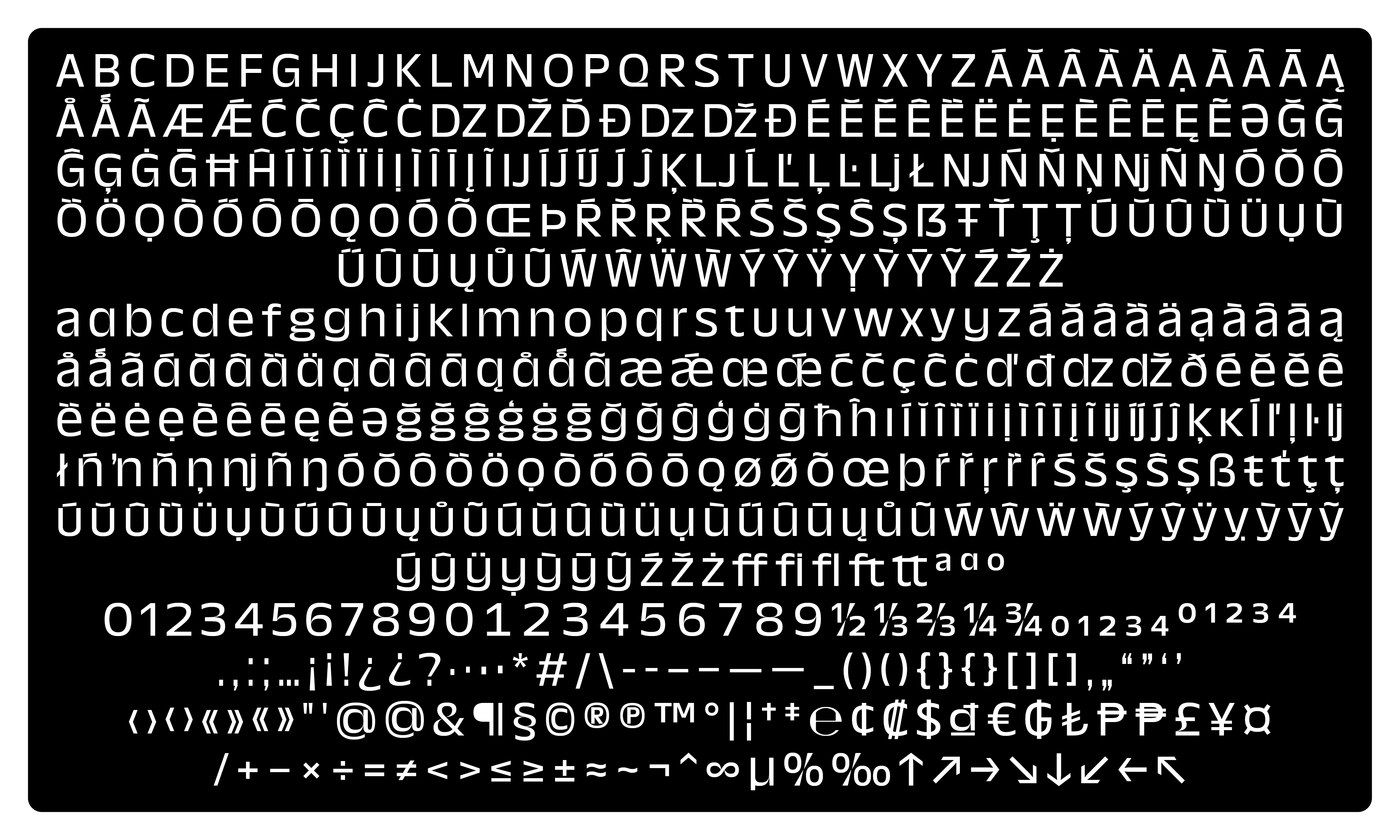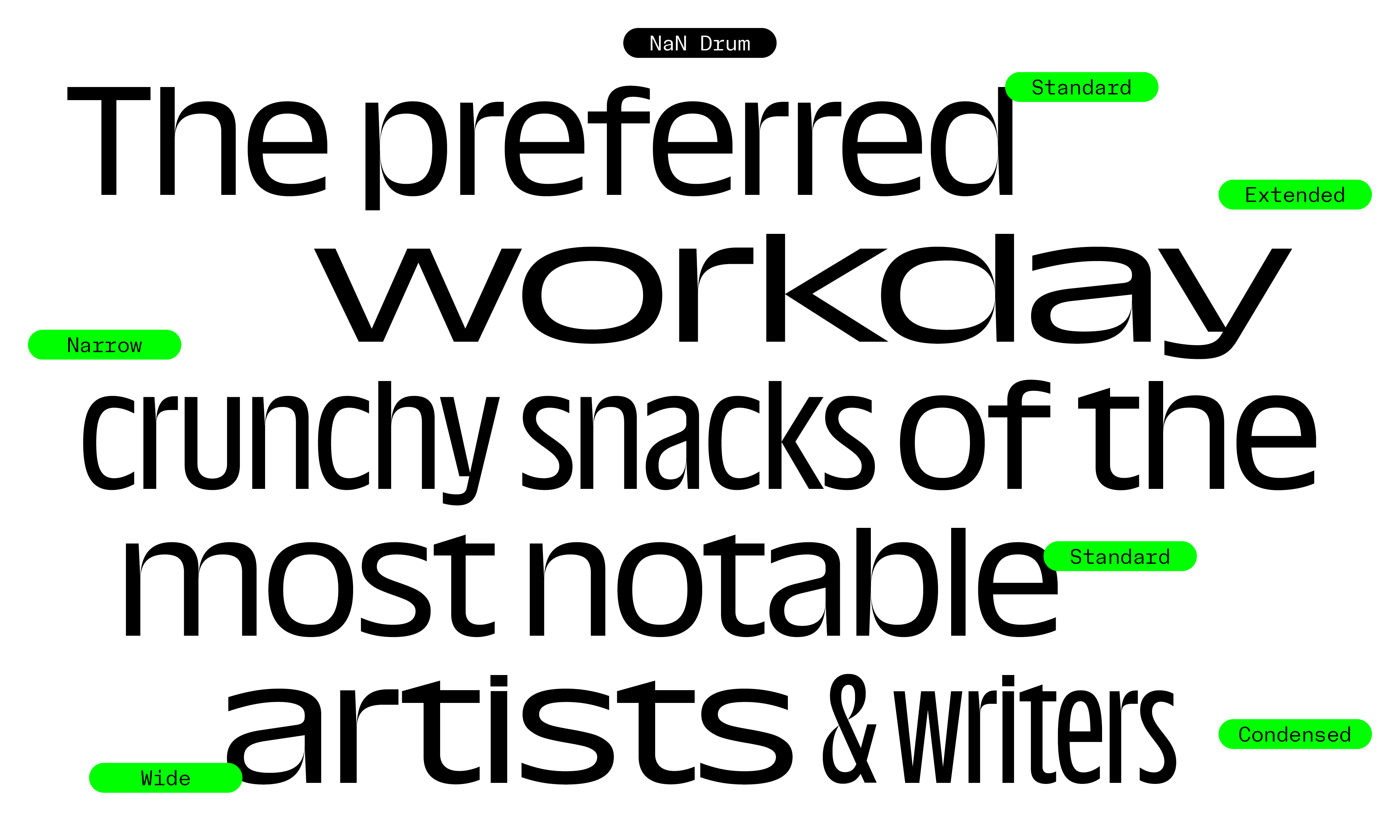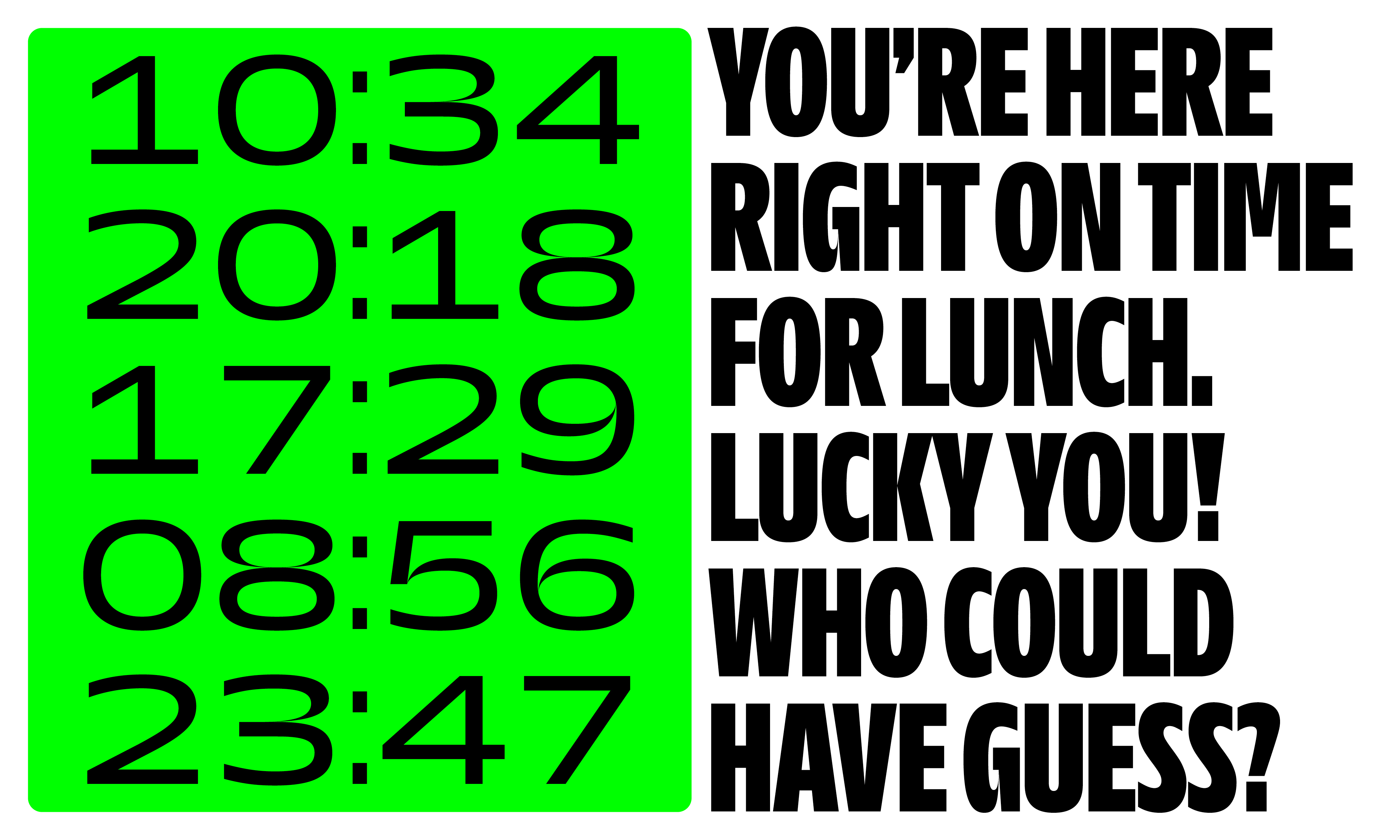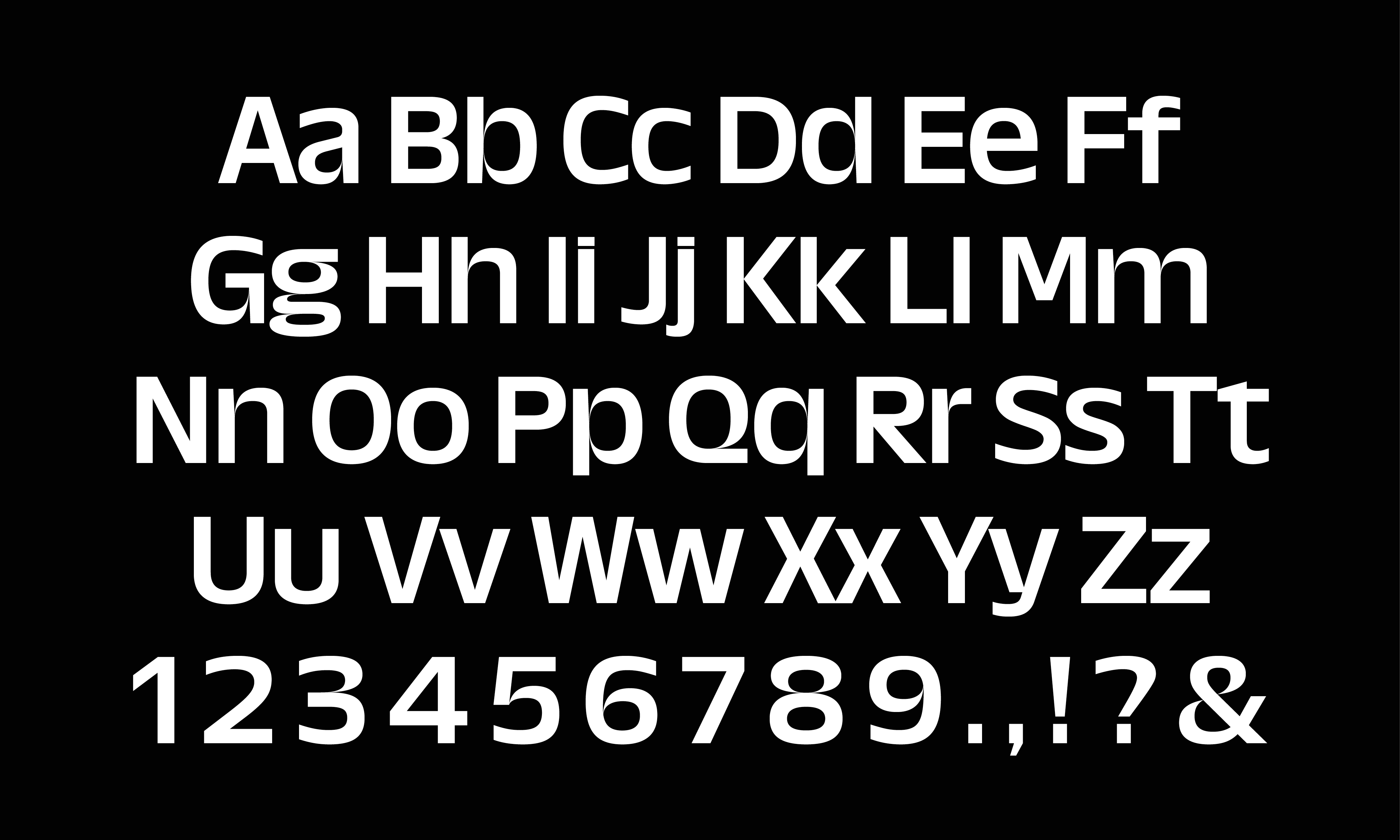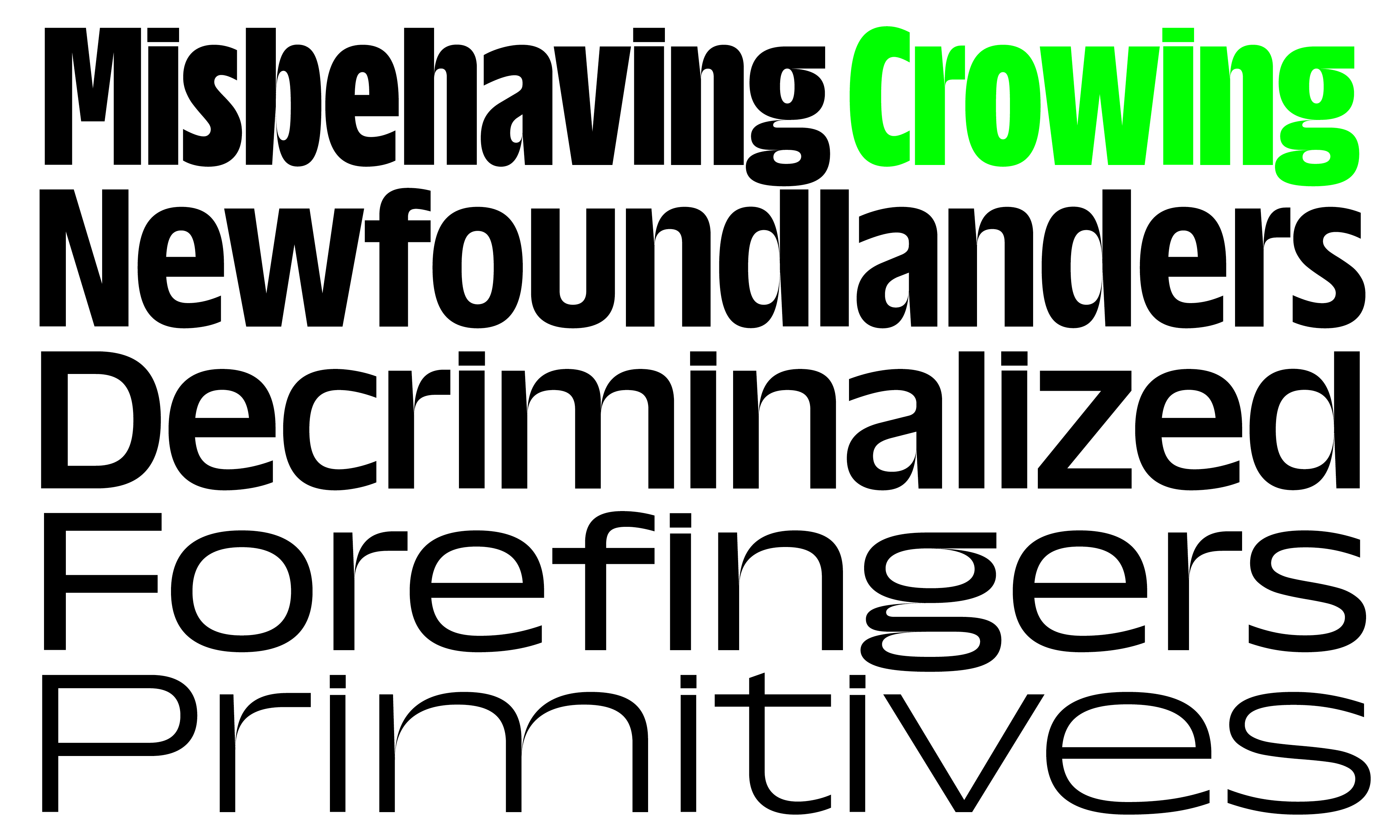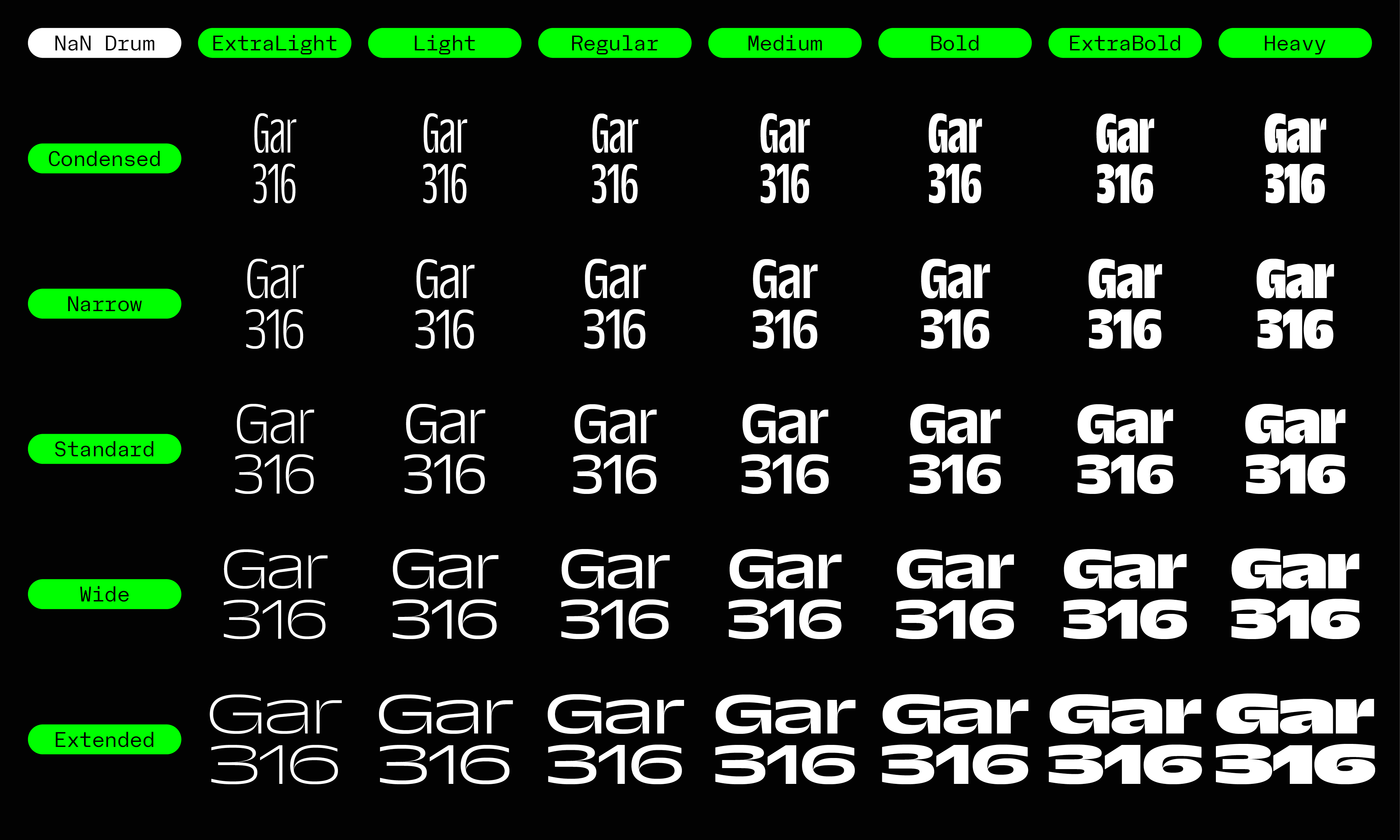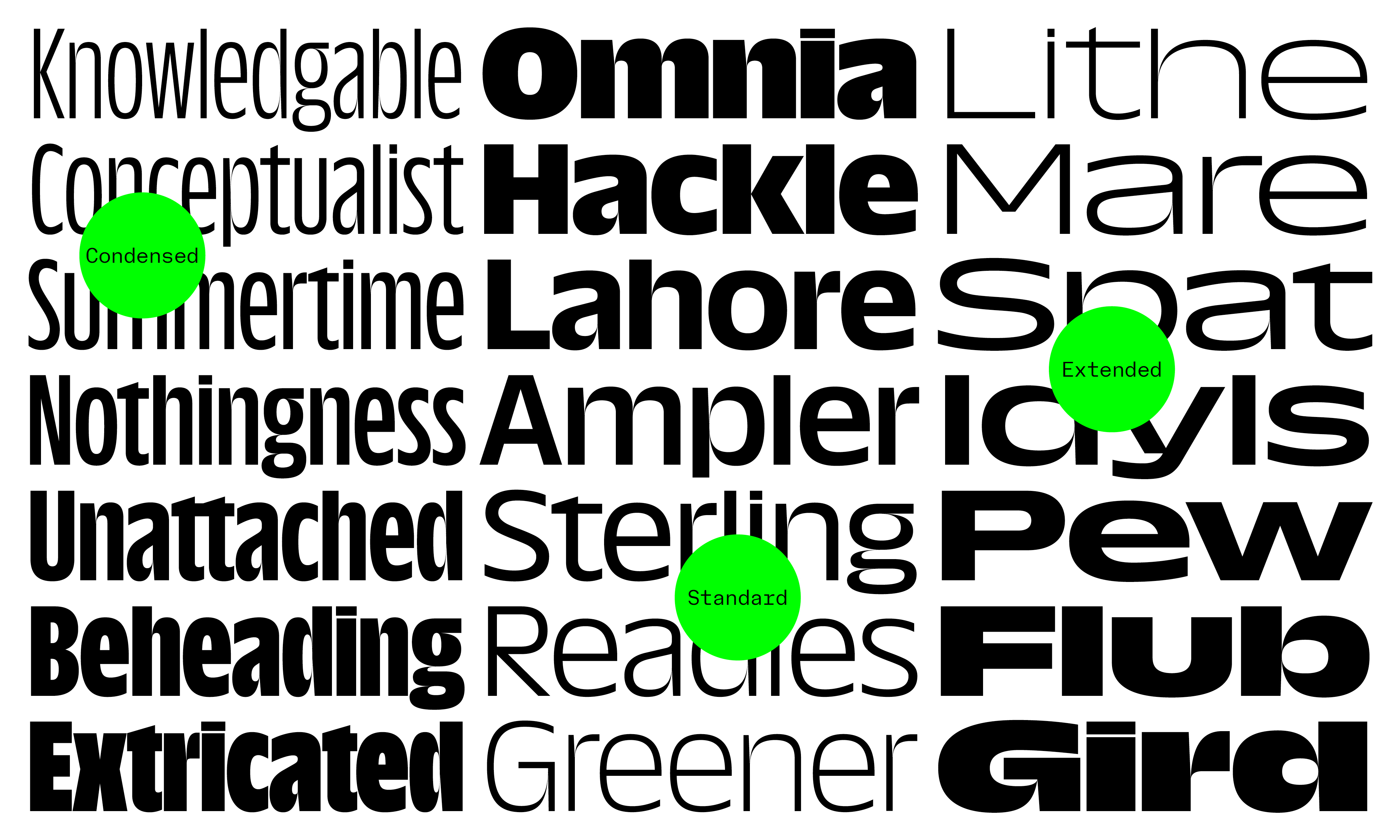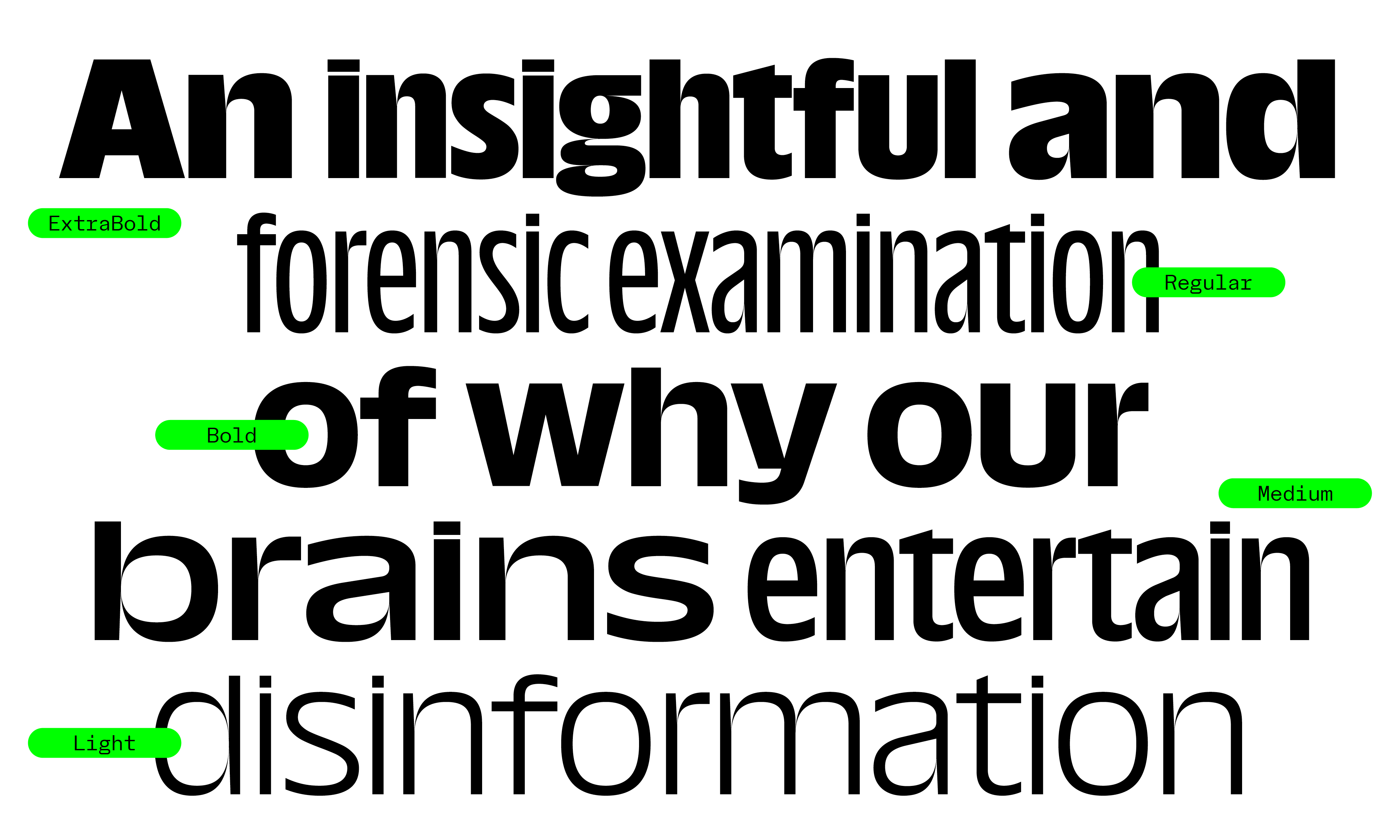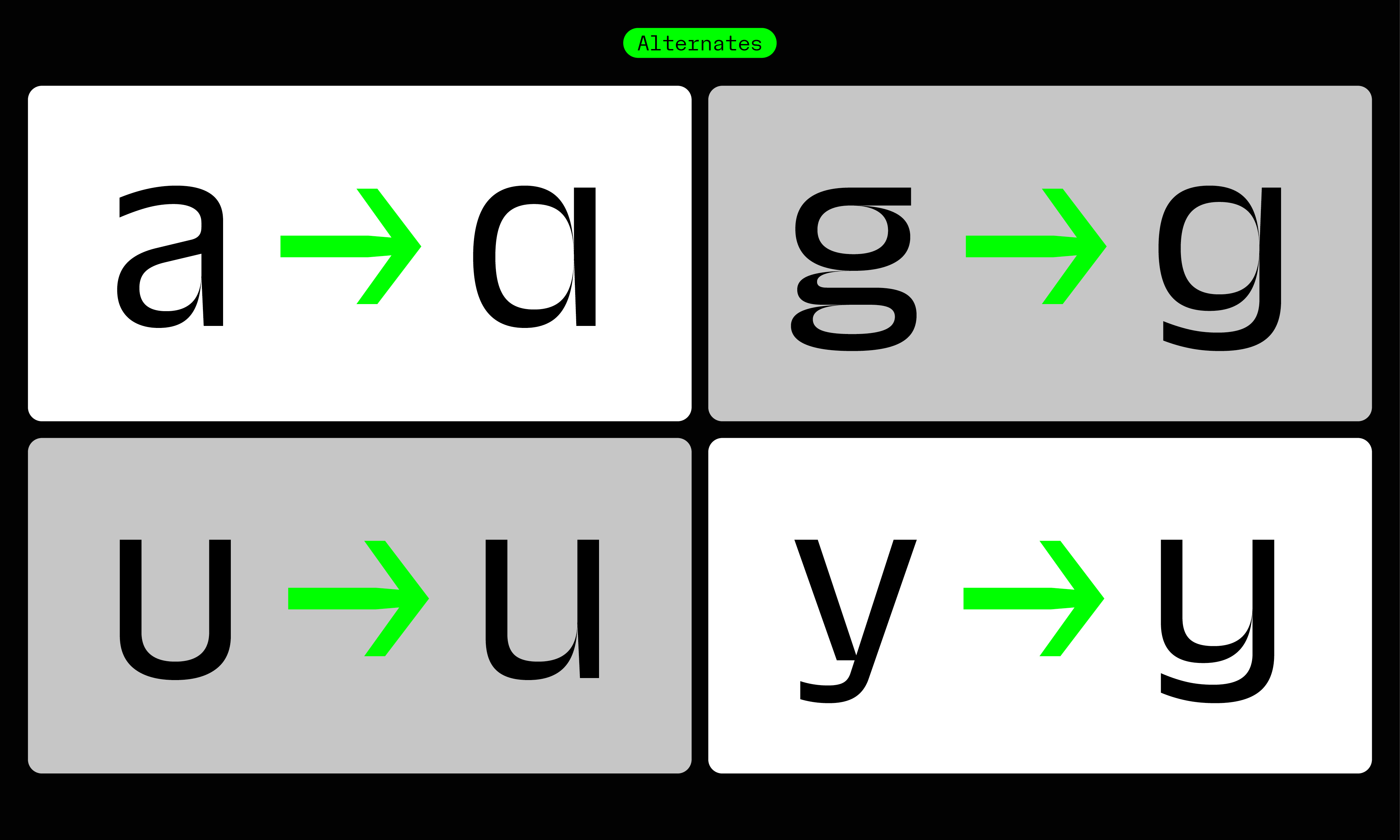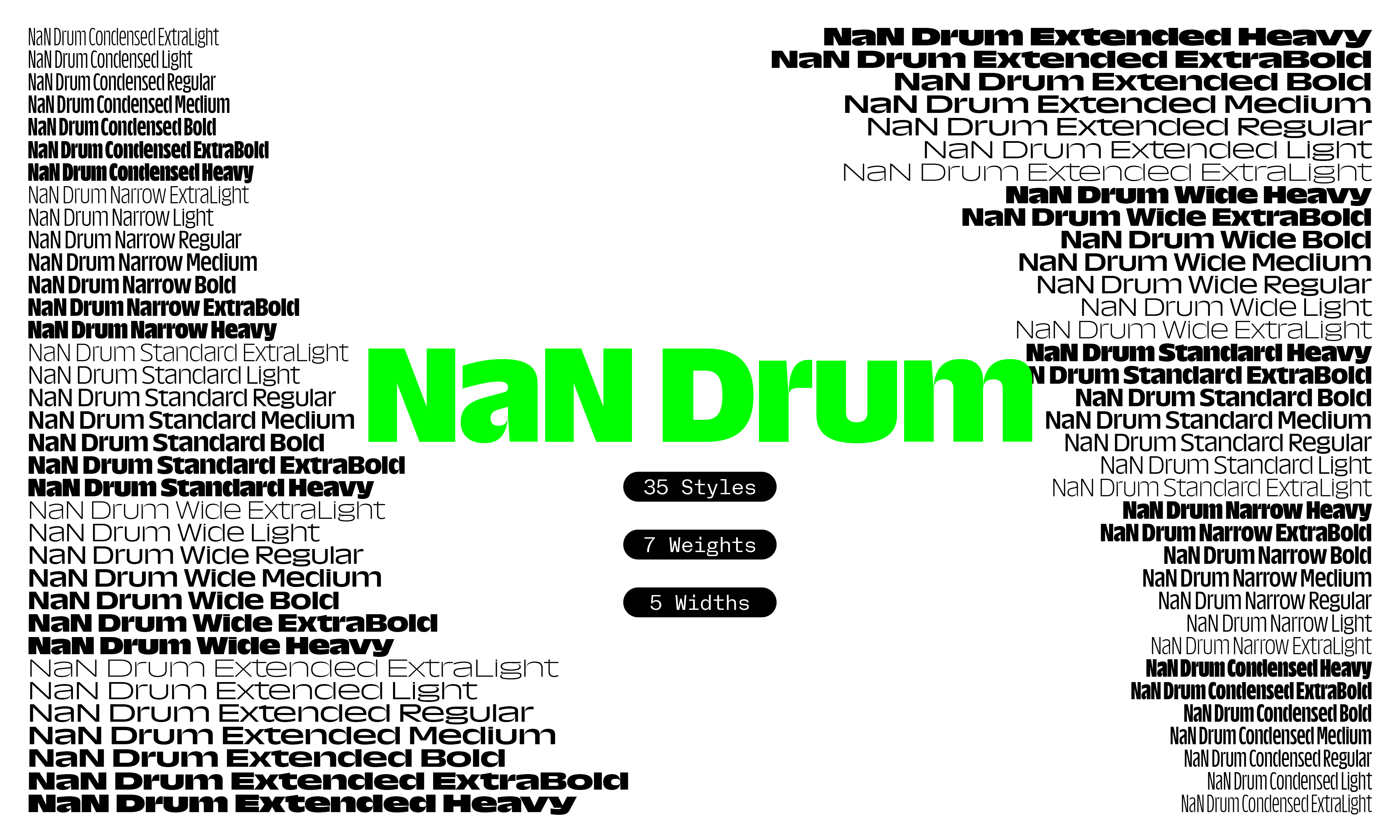
NaN Drum Wide
NaN Drum, a big-x-height humanist sans in many widths and weights.
NaN Drum Extended Open Type Features
- Fractions (on) (off) 13/57
- Ordinals (on) (off) 1o 2a
- Proportional Figures (on) (off) 0123456789
- Scientific Inferiors (on) (off) 0123456789
- Subscript (on) (off) abc123
- Superscript (on) (off) abc123
- Tabular Figures (on) (off) 0123456789
NaN Drum family